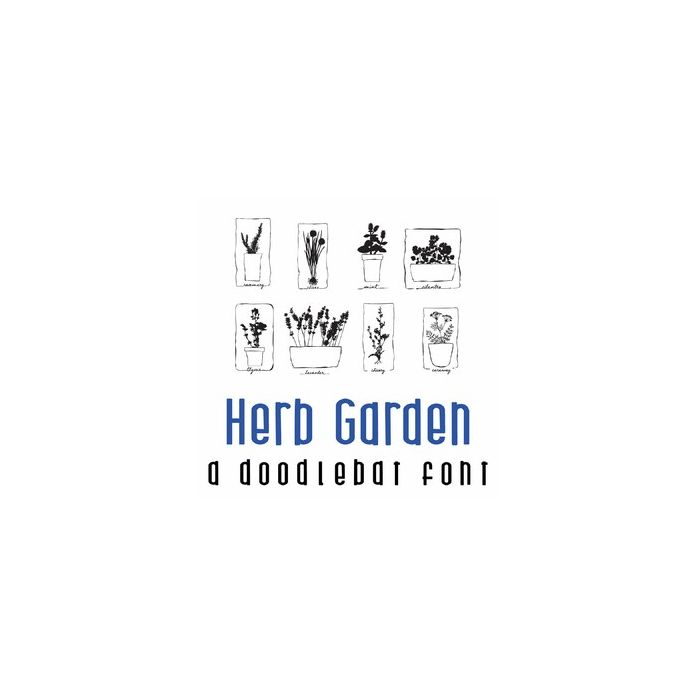
This fun doodlebat font features 26 different herbs and plants. Perfect for school, classrooms, decor, crafts, gifts, scrap book pages, cards and more!